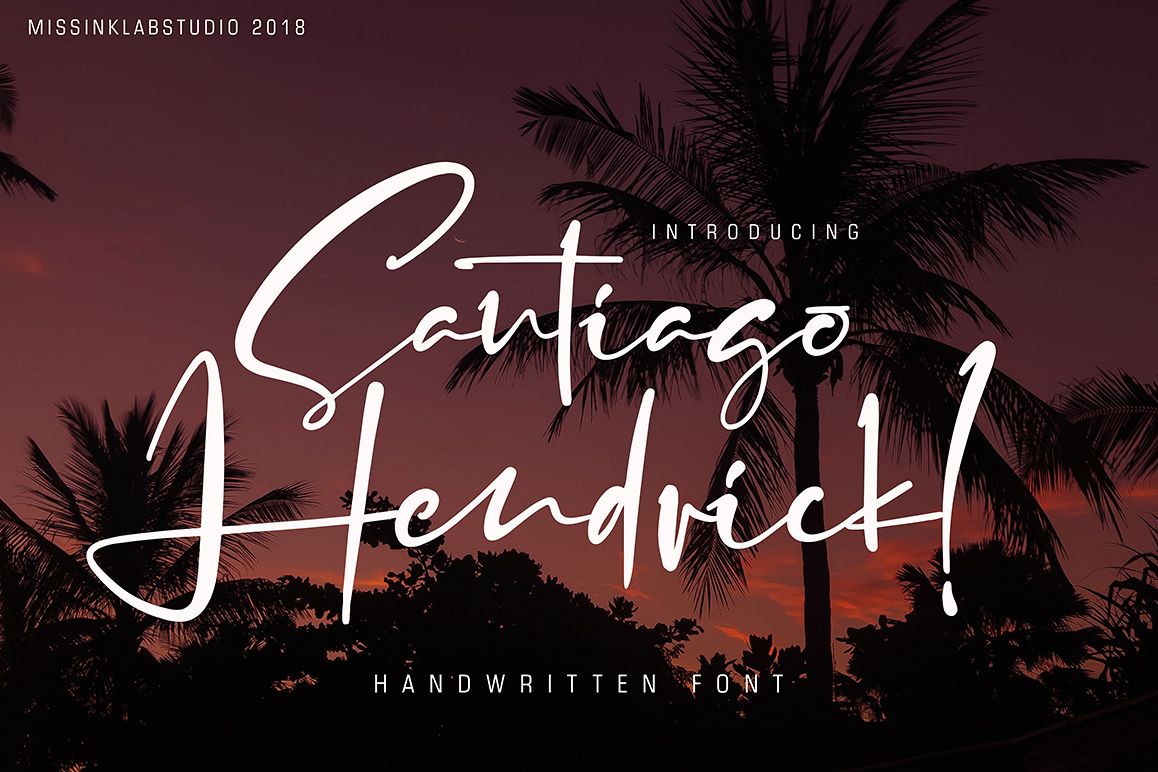
Santiago Hendrick
Santiago Hendrick script font font with new style, this font will perfect for many different project ex: quotes, logo, blog header, poster, banding, fashion, apparel, letter, invitation, stationery, etc...
Santiago Hendrick